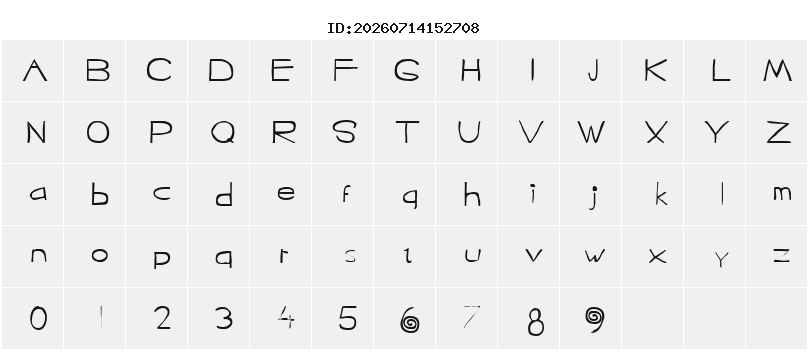
Jagular Preview
• Font Name: Jagular
• Full Font Name: Jagular
About Jagular.ttf
Jagular.ttf is a modern, elegant sans-serif font designed for ultimate readability and visual harmony. Perfect for branding, headlines, web design, and print materials.